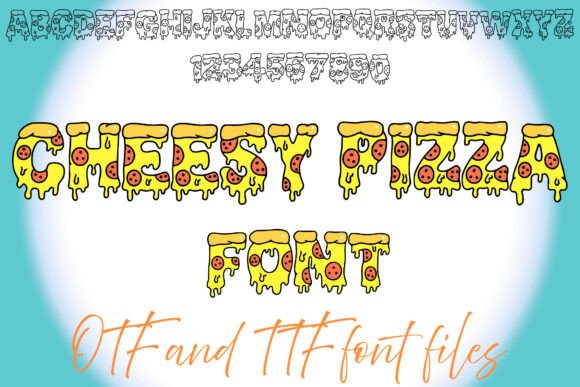
Introducing Cheesy Pizza Font: The Deliciously Fun Display Font
Are you looking for a font that adds a dash of fun and playfulness to your designs? Look no further than Cheesy Pizza Font, a deliciously fun display font that’s sure to make your audience smile. This font is literally oozing with character, with each letter shaped like melty cheese topped with pepperoni slices. In this article, we’ll dive into the world of Cheesy Pizza Font and explore its features, uses, and benefits.
What is Cheesy Pizza Font?
Cheesy Pizza Font is a unique and creative display font that’s perfect for food branding, children’s designs, restaurant menus, or quirky social posts. The font features bold and playful letters that are shaped like melty cheese and topped with pepperoni slices, giving it a fun and eye-catching look. Whether you’re designing a logo, creating a social media post, or crafting a menu for your restaurant, Cheesy Pizza Font is sure to add a touch of whimsy and personality to your design.
Features of Cheesy Pizza Font
So, what makes Cheesy Pizza Font so special? Here are some of its key features:
- Unique lettering: Each letter in Cheesy Pizza Font is shaped like melty cheese topped with pepperoni slices, making it a one-of-a-kind font that’s sure to stand out.
- Bold and playful: The font features bold and playful letters that are perfect for creating eye-catching designs.
- Food branding: Cheesy Pizza Font is perfect for food branding, including restaurants, cafes, and food trucks.
- Children’s designs: The font’s playful and fun design makes it perfect for children’s designs, including children’s books, toys, and games.
- Social media posts: Cheesy Pizza Font is perfect for creating quirky and eye-catching social media posts that are sure to grab attention.
Uses of Cheesy Pizza Font
So, how can you use Cheesy Pizza Font in your designs? Here are some ideas:
- Restaurant menus: Use Cheesy Pizza Font to create eye-catching restaurant menus that are sure to grab attention.
- Food branding: Use the font to create logos, packaging, and marketing materials for your food brand.
- Children’s designs: Use Cheesy Pizza Font to create fun and playful designs for children’s books, toys, and games.
- Social media posts: Use the font to create quirky and eye-catching social media posts that are sure to grab attention.
- Party invitations: Use Cheesy Pizza Font to create fun and playful party invitations that are sure to get your guests excited.
Benefits of Using Cheesy Pizza Font
So, why should you use Cheesy Pizza Font in your designs? Here are some benefits:
- Adds personality: Cheesy Pizza Font adds a touch of personality and whimsy to your designs, making them more eye-catching and engaging.
- Creates a fun atmosphere: The font’s playful and fun design creates a fun atmosphere that’s perfect for food branding, children’s designs, and social media posts.
- Easy to read: Despite its playful design, Cheesy Pizza Font is easy to read and understand, making it perfect for use in a variety of designs.
- Versatile: The font is versatile and can be used in a variety of designs, from restaurant menus to social media posts.
In conclusion, Cheesy Pizza Font is a deliciously fun display font that’s perfect for food branding, children’s designs, restaurant menus, or quirky social posts. Its unique lettering, bold and playful design, and versatility make it a great addition to any design project. Whether you’re looking to add a touch of personality to your designs or create a fun atmosphere, Cheesy Pizza Font is the perfect choice. So why not give it a try and see how it can add flavor to your designs?
- What is Cheesy Pizza Font? Cheesy Pizza Font is a deliciously fun display font that’s perfect for food branding, children’s designs, restaurant menus, or quirky social posts.